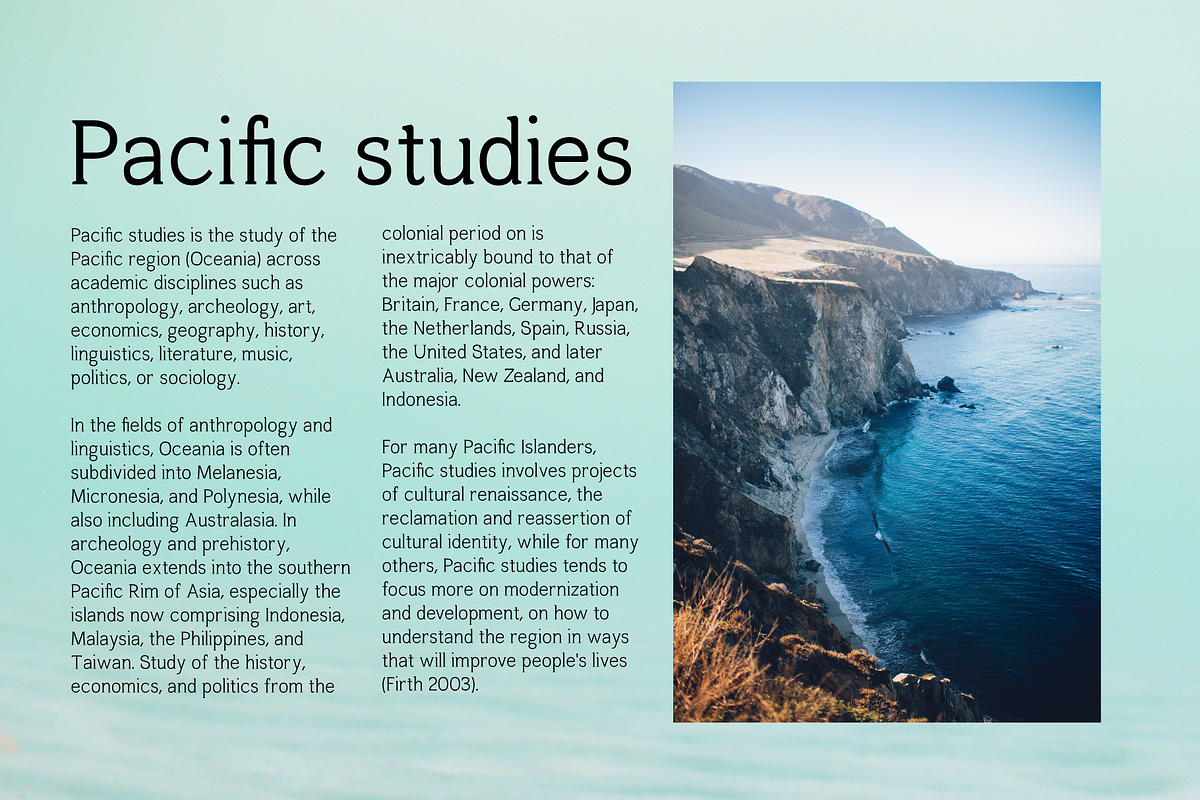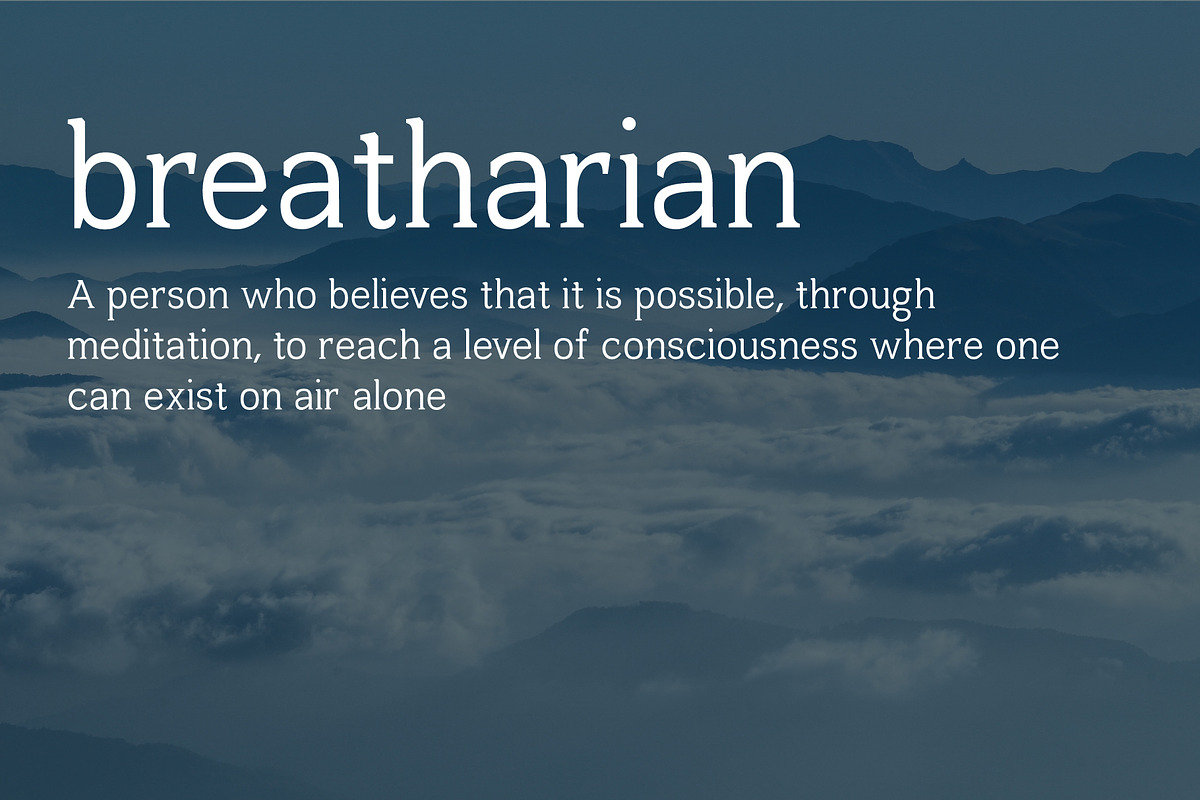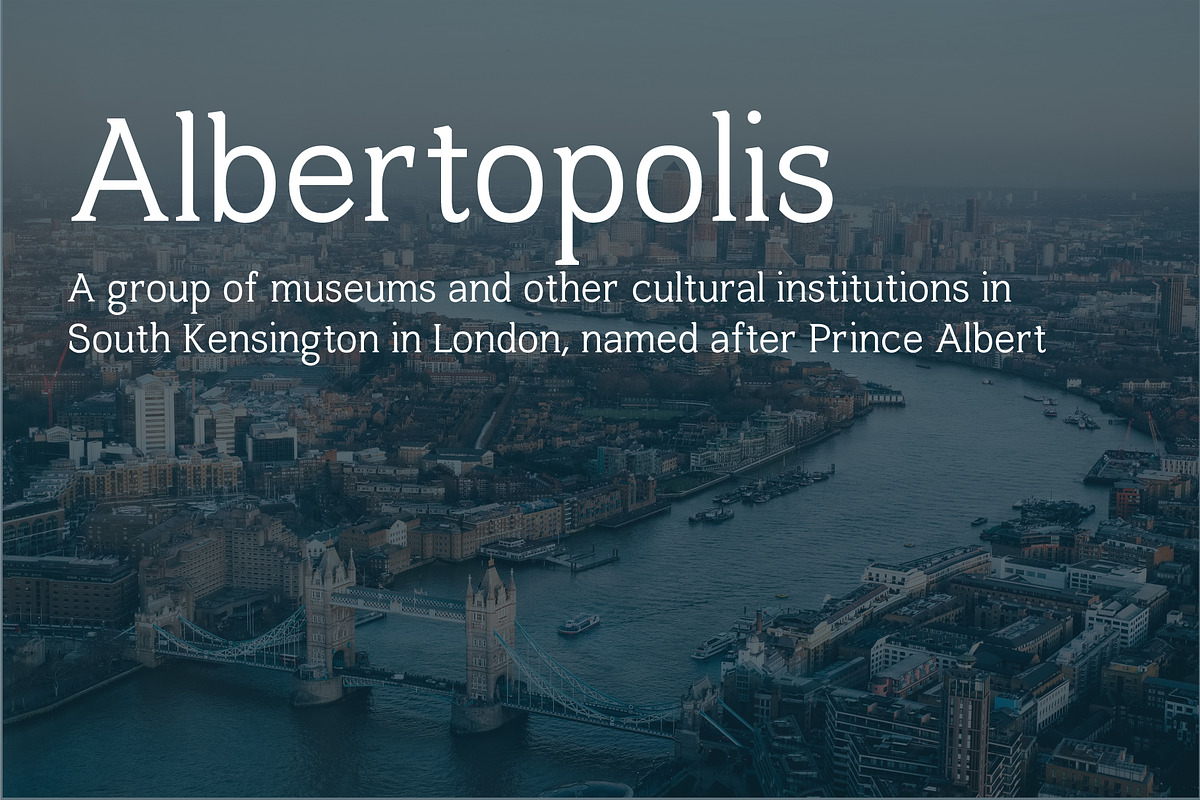
Harnet Serif
Harnet is a modern serif font, suitable for print design, logo design, headlines, long texts and more. 474 glyphs, including ligatures, diacritics, punctuation, symbols, Cyrillic, Bulgarian Cyrillic. Latin alphabet with extensive language support. 4 weights. Sample web fonts included.
- Light
- Bold
- Heavy